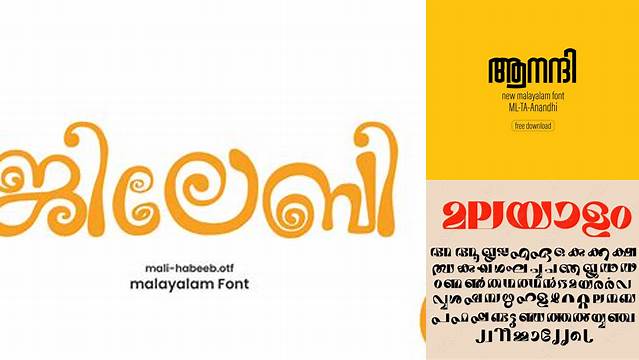
Malayalam Font Maker: Free Online Tools & Resources
Creating your own Malayalam fonts can seem like a daunting task, but it doesn't have to be! With the advent of various online tools and resources, designing Malayalam fonts has become more accessible than ever before. Whether you're a seasoned designer or just starting out, this comprehensive guide will walk you through the process, highlighting the best free online Malayalam font makers and providing valuable tips to help you craft stunning typefaces. So, if you're ready to dive into the world of Malayalam font design, let's get started, guys!
What is a Malayalam Font Maker?
Before we delve into the tools, let's clarify what a Malayalam font maker actually is. Essentially, it's a software or online platform that allows you to create, modify, and customize Malayalam fonts. These tools typically provide a user-friendly interface where you can draw glyphs (individual characters), adjust spacing, and fine-tune the overall appearance of your font. The beauty of these online platforms is that you don't need to install any heavy software – everything is done directly in your web browser. Now, let’s explore some specific aspects of this fascinating world of font creation.
H2: Free Online Malayalam Font Maker Tools
H3: BirdFont
BirdFont is a free, open-source font editor that supports the creation of Malayalam fonts. Its intuitive interface and comprehensive features make it a favorite among designers. With BirdFont, you can draw glyphs, adjust spacing, and export your font in various formats, ensuring compatibility across different platforms. One of the key advantages of BirdFont is its cross-platform compatibility, meaning you can use it on Windows, macOS, and Linux. This flexibility makes it a great choice for designers working in diverse environments. BirdFont also has a robust community forum where users can share tips, ask questions, and learn from each other. This supportive environment can be invaluable for beginners getting started with font design. Moreover, the open-source nature of BirdFont means that the software is constantly being updated and improved by a dedicated community of developers. This ensures that you're always working with a tool that's up-to-date with the latest technology and design trends. For those who are serious about font design, BirdFont is definitely a tool worth exploring.
H3: FontStruct
FontStruct is a unique, browser-based font editor that lets you build fonts from geometric shapes. This approach might sound limiting, but it actually opens up a world of creative possibilities, especially for designing modern and stylized Malayalam fonts. The drag-and-drop interface makes it incredibly easy to use, even for beginners. One of the standout features of FontStruct is its modular approach to font design. By using simple geometric shapes, you can create intricate and unique glyphs. This method is particularly well-suited for designing fonts with a geometric or futuristic aesthetic. FontStruct also boasts a vibrant online community where users can share their fonts, provide feedback, and collaborate on projects. This community aspect adds another layer of value to the platform, as it allows designers to connect with like-minded individuals and learn from each other. Furthermore, FontStruct’s browser-based nature means you can access it from any computer with an internet connection, making it a convenient option for designers who work on multiple devices or collaborate with others remotely. The ease of use and unique design approach make FontStruct a fantastic choice for anyone looking to experiment with Malayalam font design.
H3: Glyphs Mini
Glyphs Mini is a simplified version of the popular Glyphs font editor. While it's not completely free, it offers a trial period, allowing you to explore its capabilities before committing to a purchase. Glyphs Mini is known for its precision and advanced features, making it a great option for serious font designers. Although it's a simplified version, Glyphs Mini still packs a powerful punch when it comes to font design. It offers a range of tools for drawing, editing, and refining glyphs, giving you precise control over every aspect of your font. One of the key advantages of Glyphs Mini is its focus on accuracy and detail. The software provides a range of features specifically designed to help you create high-quality, professional-looking fonts. This includes advanced hinting capabilities, which ensure that your fonts look crisp and clear at all sizes. Glyphs Mini also supports various font formats, allowing you to export your designs for use in a wide range of applications. While the trial period is a great way to get a feel for the software, the full version of Glyphs Mini is a worthwhile investment for those who are serious about font design. Its powerful features and user-friendly interface make it a top choice among professional type designers.
H2: Understanding Malayalam Script for Font Design
Before you jump into designing, it's crucial to understand the intricacies of the Malayalam script. It's a Brahmic script with a unique set of characters and ligatures. Grasping these elements is fundamental to creating legible and aesthetically pleasing fonts. The Malayalam script is known for its circular and flowing shapes, which can present unique challenges and opportunities for font designers. Understanding the structure of each character, as well as how they connect to form words, is essential for creating a font that is both beautiful and functional. One of the key aspects of the Malayalam script is the use of conjuncts, which are combinations of two or more consonants that are written as a single glyph. These conjuncts can add complexity to the design process, but they also offer a chance to showcase your creativity and skill. Familiarizing yourself with the rules and conventions of the Malayalam script will not only improve the quality of your fonts but also deepen your appreciation for this rich and vibrant writing system.
H3: Key Features of Malayalam Script
The Malayalam script boasts several unique features that designers should be aware of. It includes a large number of characters, including vowels, consonants, and various diacritics. Mastering these elements is essential for creating a comprehensive Malayalam font. The script also features a complex system of ligatures, where multiple characters are combined into a single glyph. Understanding how these ligatures work is crucial for ensuring that your font is legible and visually appealing. Another important aspect of the Malayalam script is its use of vowel signs, which are added to consonants to indicate the vowel sound. These vowel signs can be placed above, below, or to the side of the consonant, and their placement and shape can significantly impact the overall appearance of the font. By paying attention to these key features, you can create Malayalam fonts that are both accurate and aesthetically pleasing.
H3: Character Structure and Ligatures
The structure of Malayalam characters is quite intricate. Each character is composed of various strokes and curves, and the way these elements are combined determines the character's identity. Ligatures, as mentioned earlier, are combinations of characters that are written as a single glyph. These ligatures are an integral part of the Malayalam script, and they play a significant role in the flow and rhythm of the text. Designing ligatures can be challenging, as they need to be both visually harmonious and easily recognizable. However, mastering the art of ligature design can greatly enhance the beauty and readability of your Malayalam fonts. One common approach to designing ligatures is to start with the individual characters and then experiment with different ways of connecting them. This may involve adjusting the spacing, overlapping the characters, or even creating entirely new shapes. The key is to find a balance between creativity and legibility, ensuring that the ligature is both visually appealing and easy to read.
H3: Importance of Understanding the Script
Why is understanding the Malayalam script so important for font design? Well, guys, if you don't grasp the script's nuances, your fonts might end up being illegible or, worse, culturally insensitive. A deep understanding of the script allows you to create fonts that are not only aesthetically pleasing but also functionally sound and respectful of the language's traditions. Designing a font is not just about drawing pretty shapes; it's about creating a tool that allows people to communicate effectively. If your font is difficult to read or contains errors, it will hinder communication rather than facilitate it. Moreover, the Malayalam script is deeply intertwined with the culture and identity of the Malayalam-speaking community. By understanding the script's history and evolution, you can create fonts that resonate with this community and honor its heritage. This means paying attention to details such as the proportions of the characters, the way they connect, and the overall visual rhythm of the text. In short, a thorough understanding of the Malayalam script is essential for creating fonts that are both beautiful and meaningful.
Kerning and spacing are critical aspects of typography that greatly influence the readability and aesthetic appeal of your fonts. Kerning refers to the adjustment of the space between individual pairs of characters, while spacing refers to the overall space between characters, words, and lines. Mastering these elements is essential for creating a well-balanced and harmonious typeface. Poor kerning and spacing can make a font look uneven and difficult to read, while good kerning and spacing can enhance its legibility and visual appeal. The goal is to create a consistent and pleasing rhythm in the text, ensuring that the words flow smoothly and effortlessly.
H3: Understanding Kerning Pairs
Certain character pairs, such as